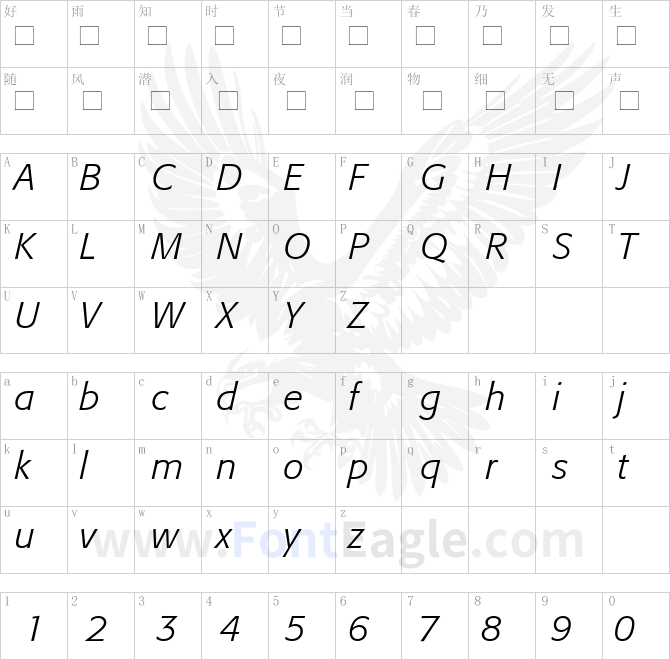
- Font name:Formata-Light
- Font Subfamily:LightItalic
- Font Subfamily ID:DTP-Formata-Light Italic
- Font Full Name:Formata-Light Italic
- Postscript:Formata-LightItalic